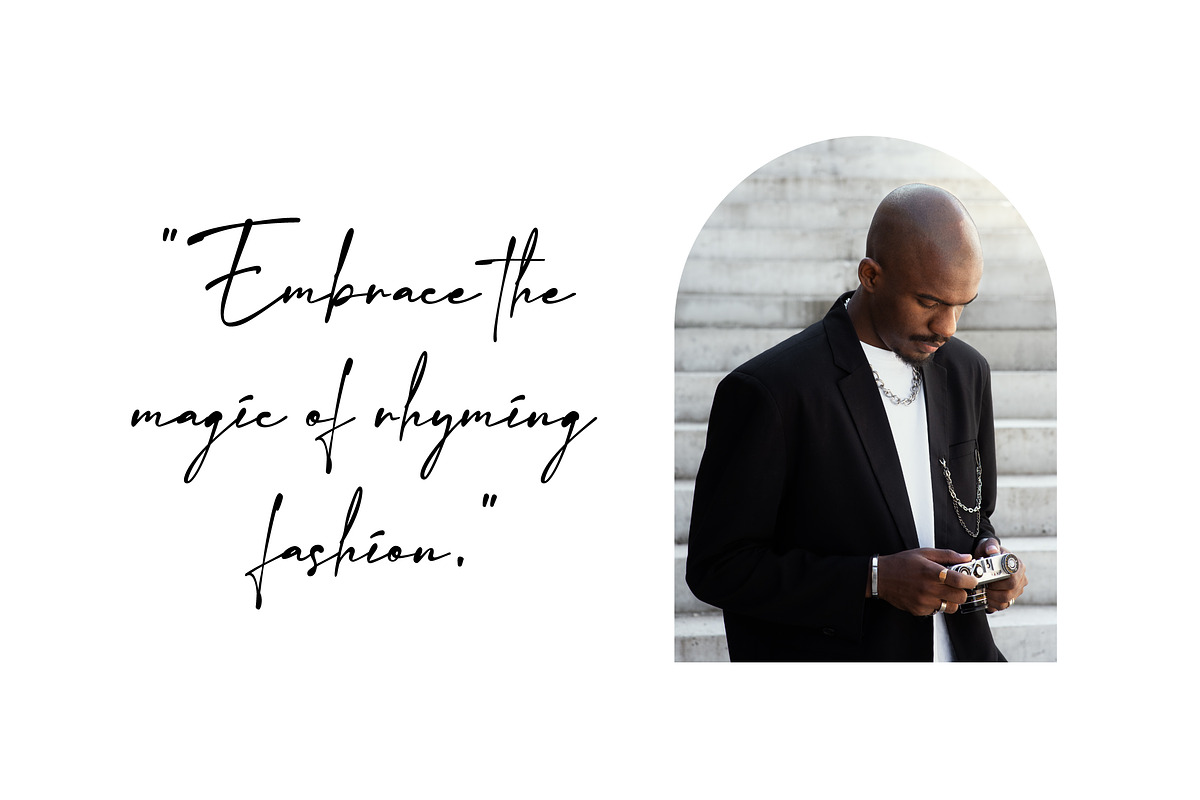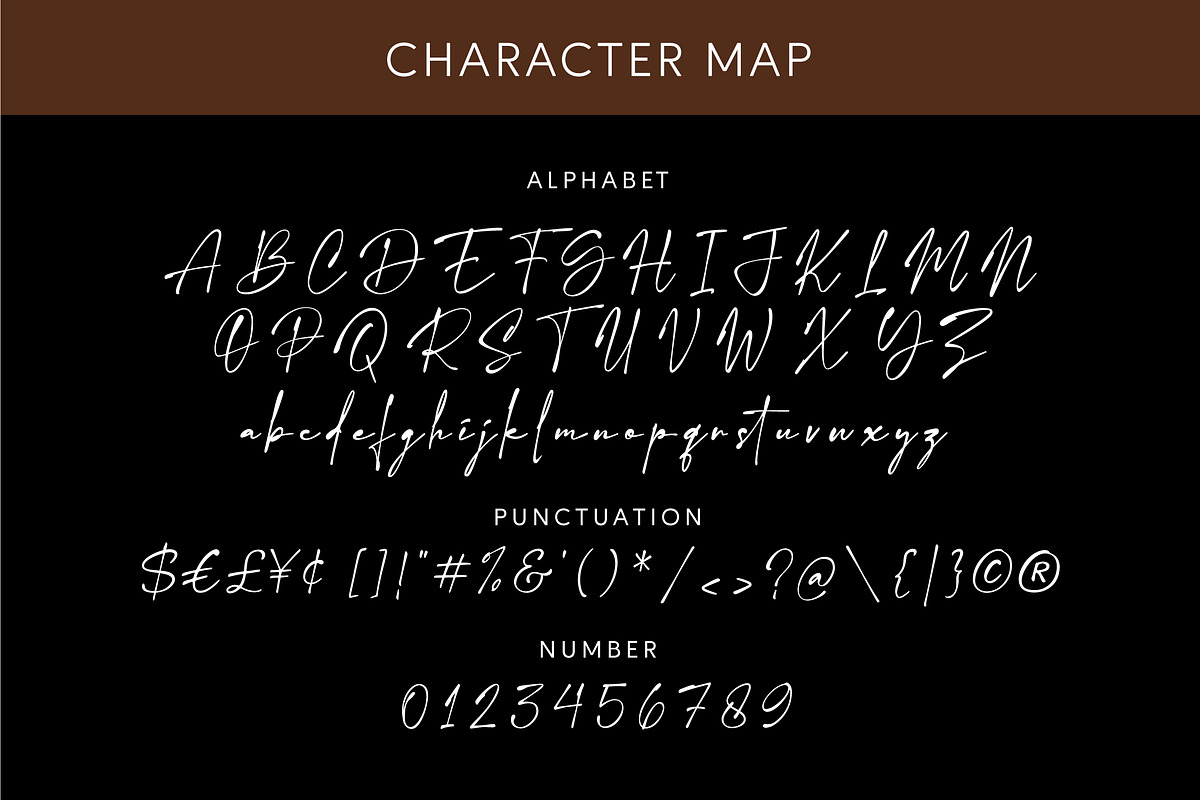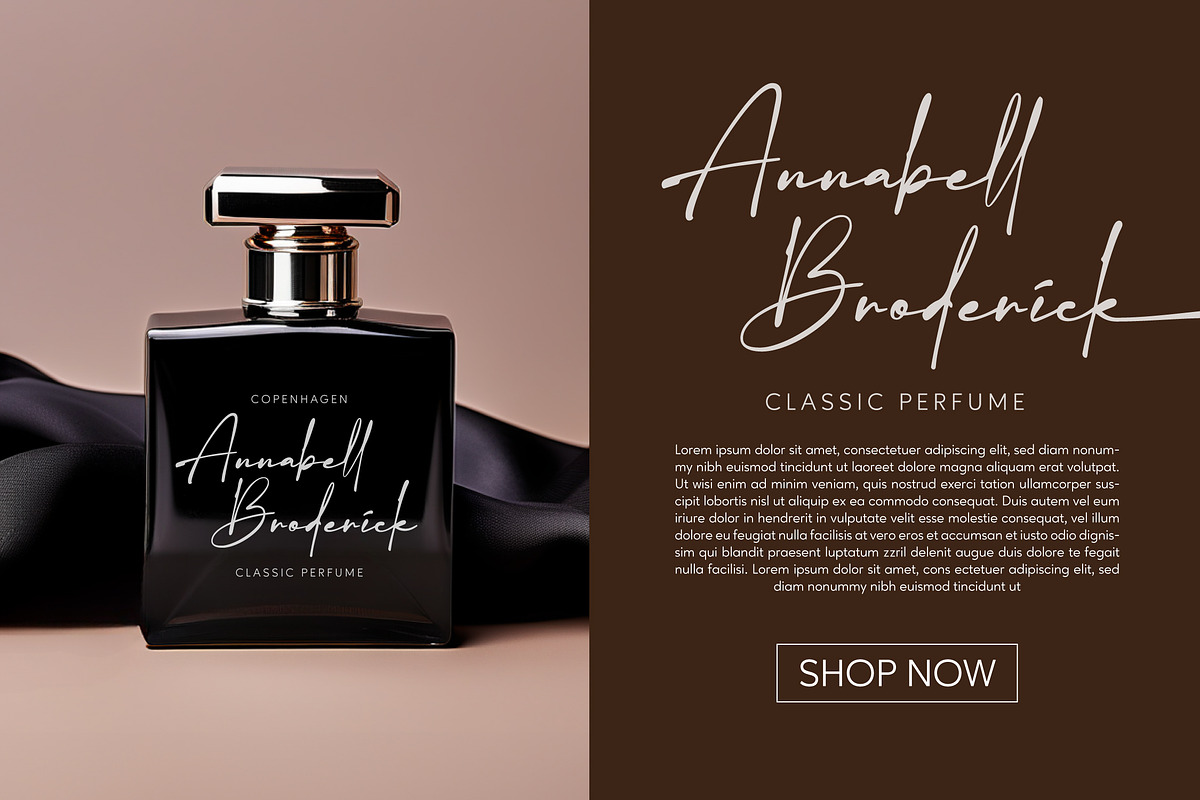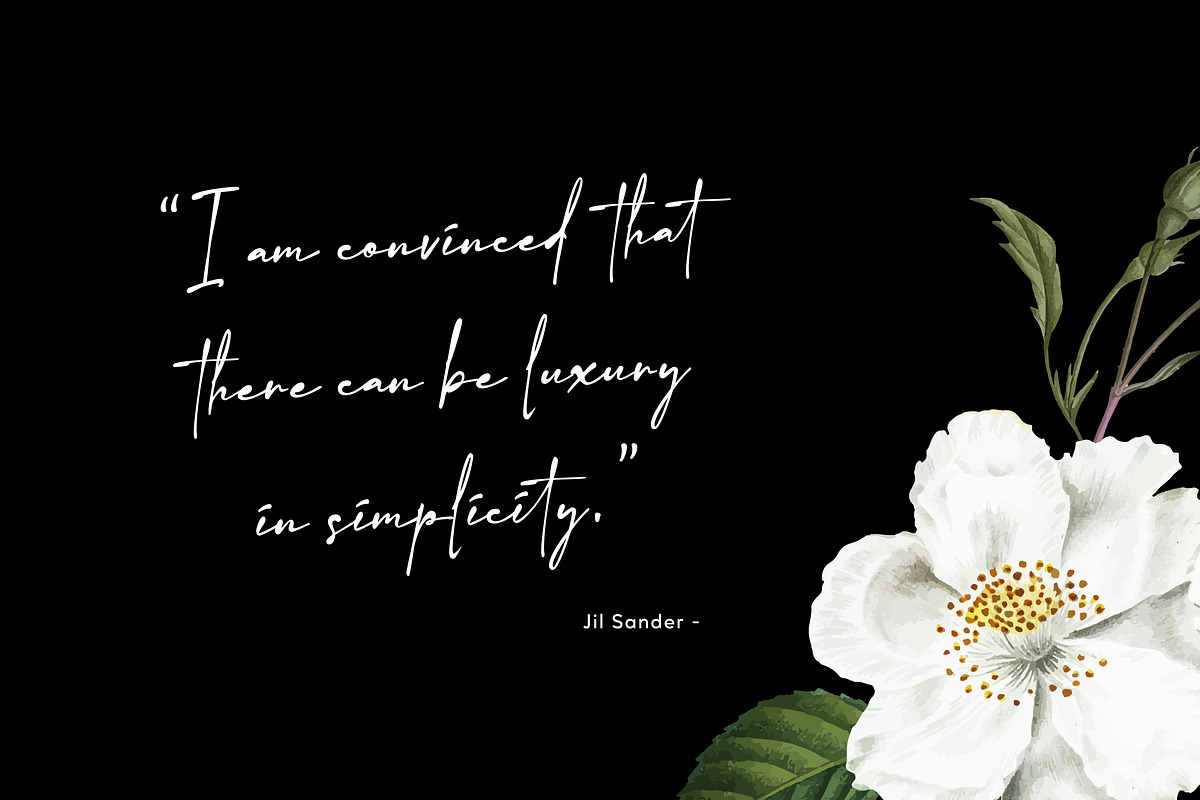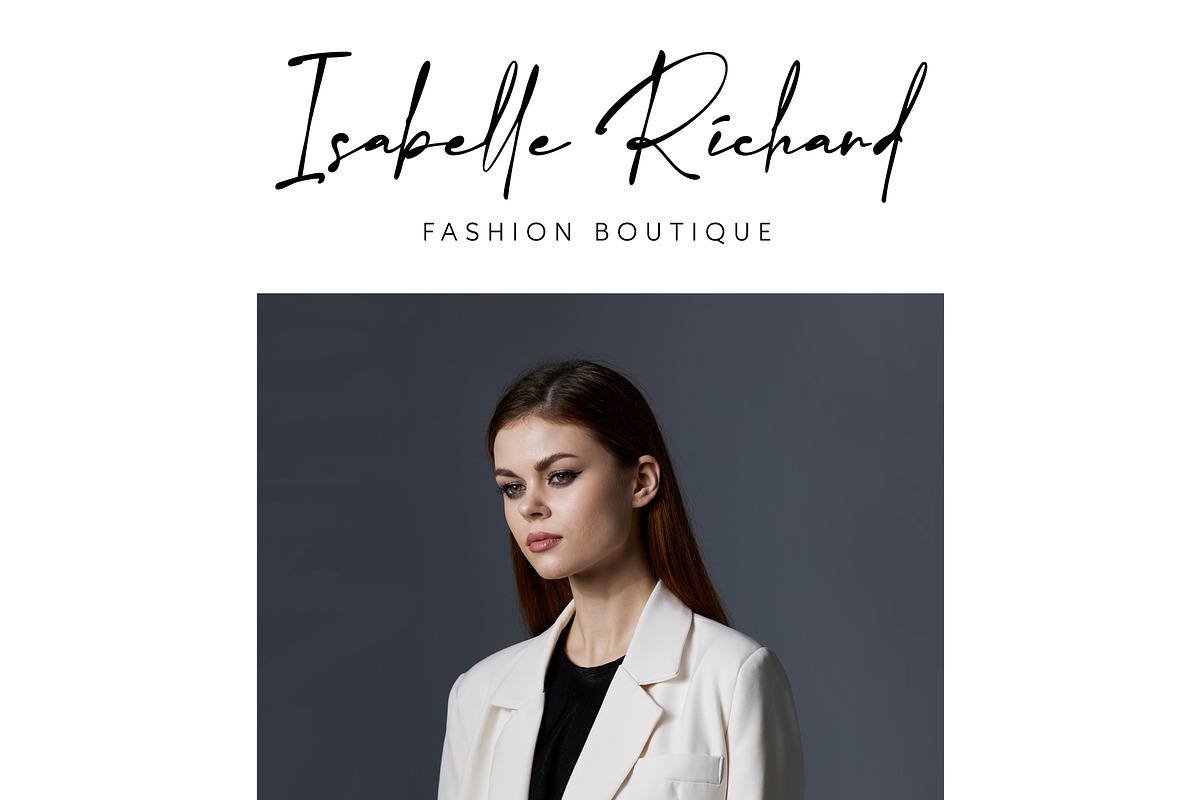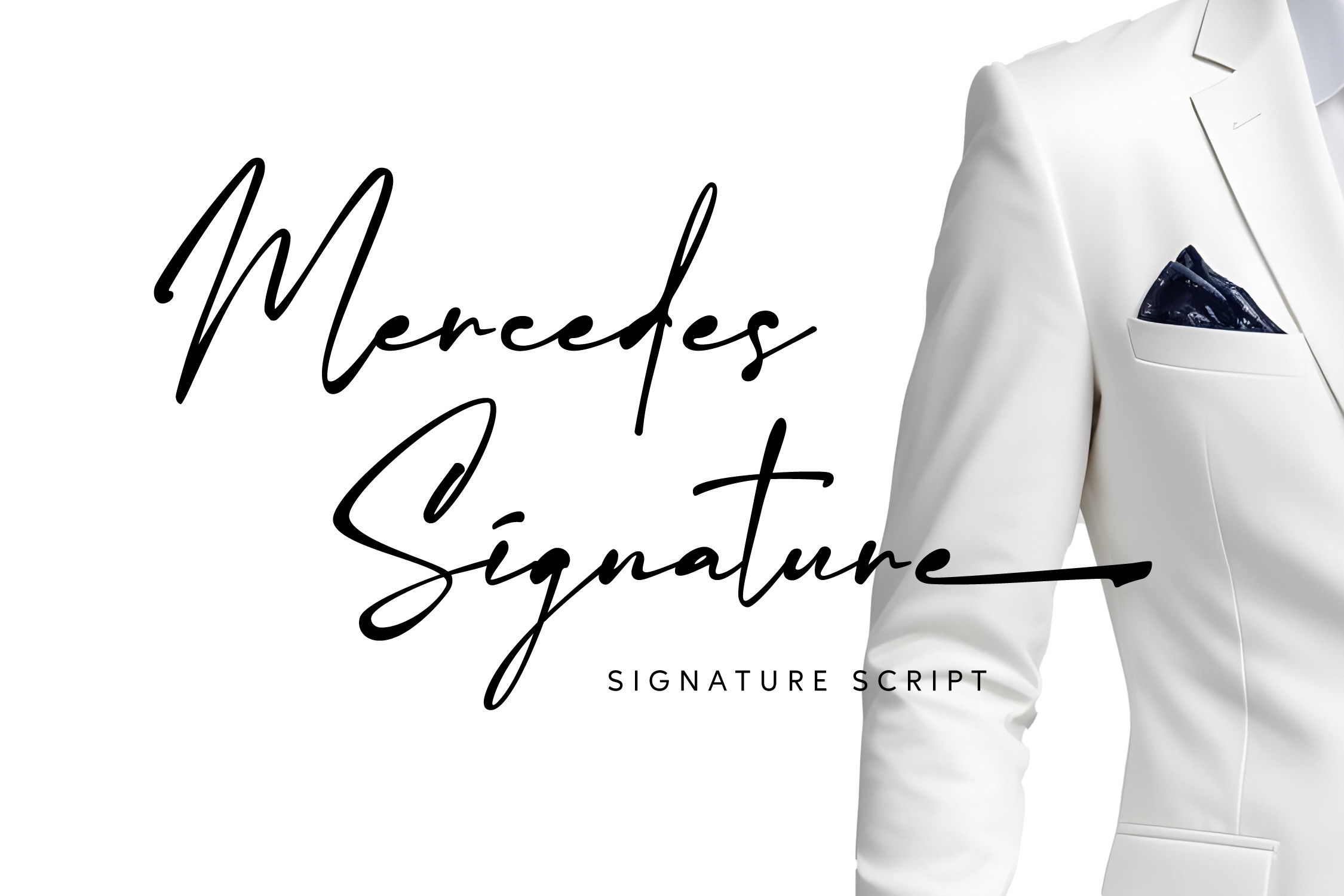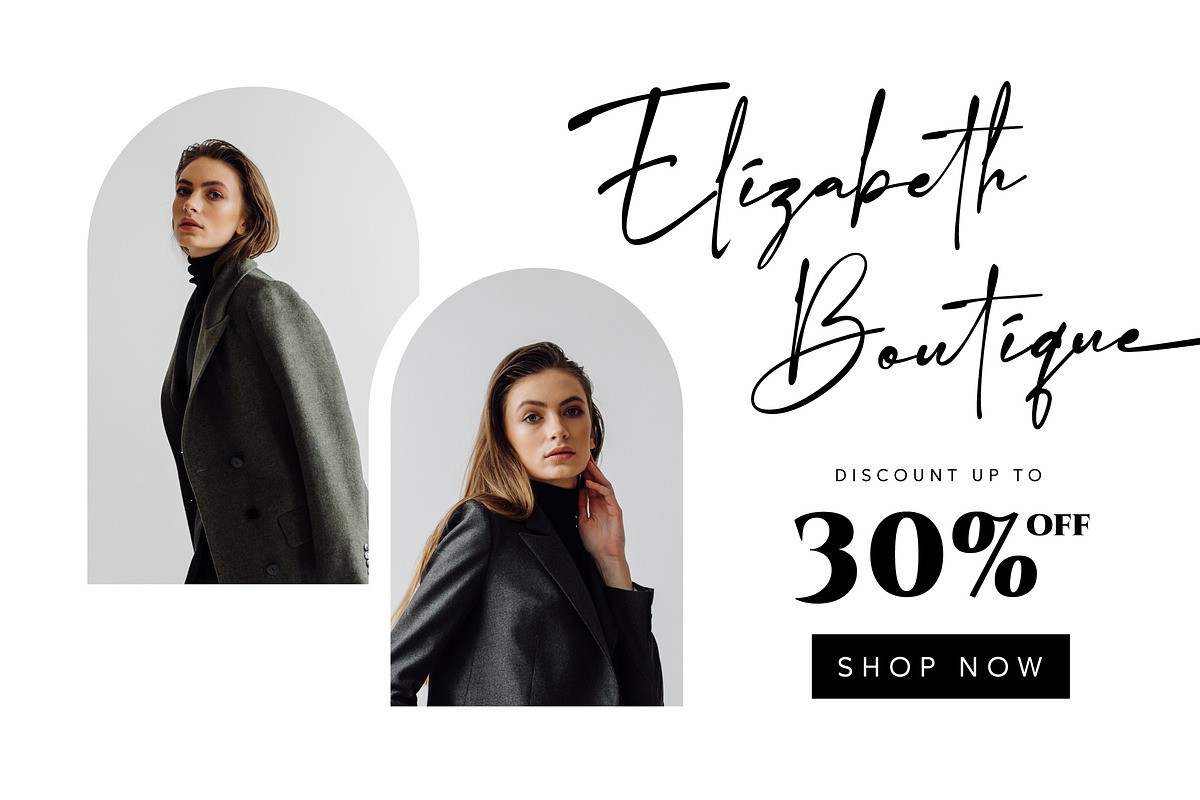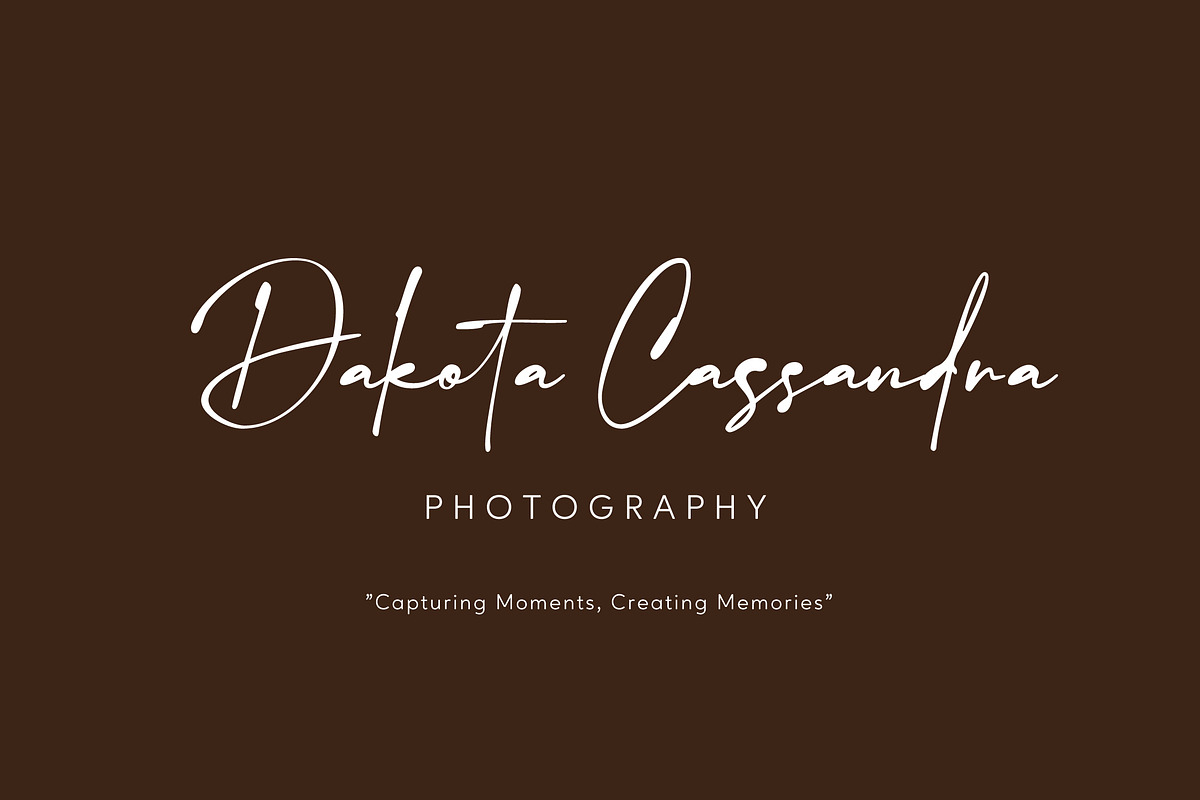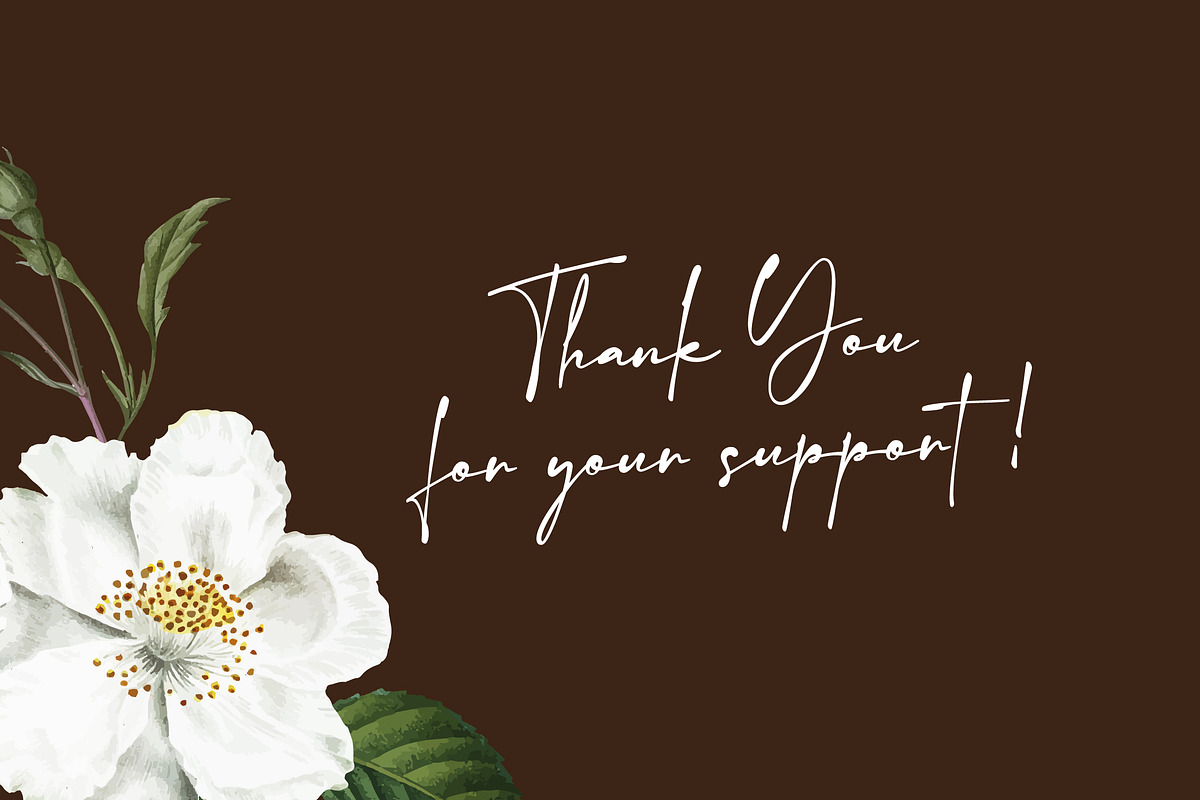
Mercedes Signature Font
Mercedes Signature is an organic signature script font. This font is the best choice for fashion-related design. Mercedes Signature is perfect for branding, invitations, logos, or any creative projects that requires a touch of elegance.
- Alternate and Ligature
- Multilingual Language